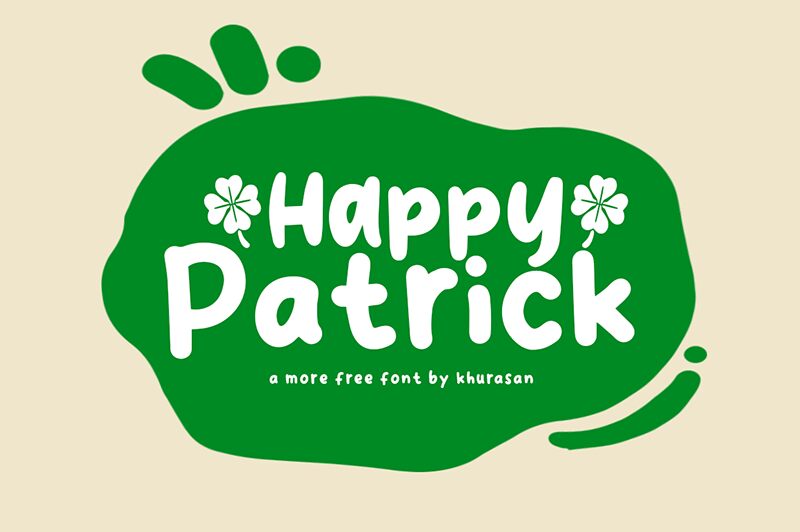
Happy Patrick
Happy Patrick is the perfect font for projects that demand a playful and lively touch. Created by the talented designer Khurasan, this display typeface boasts bold strokes and a cartoon-style that will bring your designs to life. Whether you're creating posters for children's events or designing logos for a fun-loving brand, Happy Patrick will add just the right amount of charm and whimsy to your work. Its bold weight ensures that your message will be loud and clear, while its unique style sets it apart from other fonts on the market. Say goodbye to boring designs and hello to Happy Patrick!